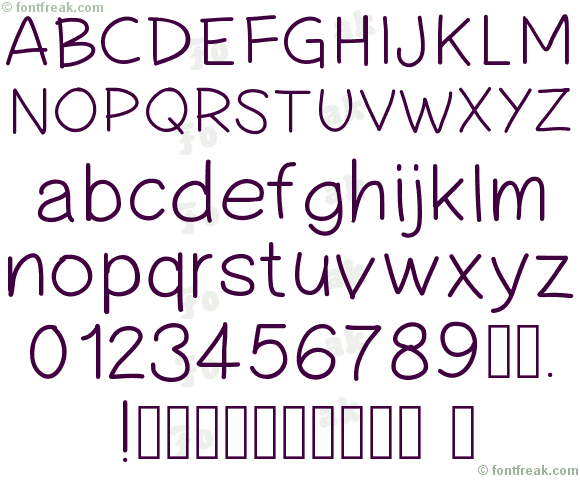
PWSimpleHandwriting
PWSimpleHandwriting by Peax Webdesign is a charming handwritten font that captures the essence of casual elegance. This script-style font features a natural flow, reminiscent of personal notes or diary entries. The strokes are moderately weighted, creating a warm and approachable feel, while the slight irregularities in letterforms enhance its authenticity and handcrafted quality. The letters are well-spaced, ensuring readability without sacrificing the personal touch that one looks for in a handwritten typeface.
This versatile font is perfect for a variety of use cases. It's an excellent choice for wedding invitations, where a touch of informality complements the joyous occasion. Additionally, PWSimpleHandwriting works beautifully on restaurant menus, adding a welcoming vibe that can make the dining experience feel more intimate. Graphic designers will find it ideal for crafting playful branding materials or logos that need a personal touch. Content creators can enhance their blogs or social media graphics with this font, giving a friendly and relatable feel to their written communication.
The target audience for this font includes graphic designers, small business owners, and content creators who appreciate the blend of personal style and professionalism. Whether you're designing promotional materials or simply looking to add a unique flair to your projects, PWSimpleHandwriting is a fantastic choice.
What truly sets this font apart is its ability to convey warmth and personality while remaining highly versatile. The PWSimpleHandwriting font free download allows users to incorporate this distinct style into their projects without any financial commitment. By choosing this font, you bring a touch of individuality that resonates with audiences, making your designs stand out in a sea of generic typefaces.